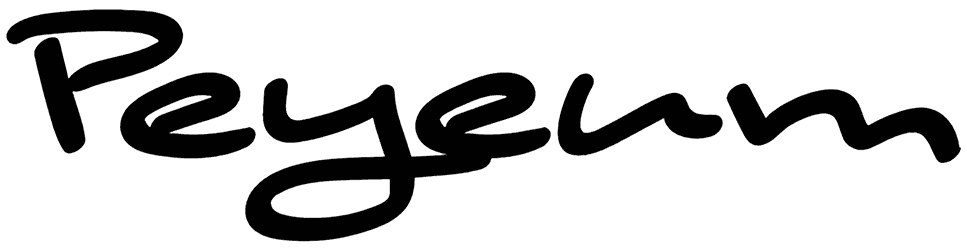
Peyeum Font
Peyeum is a script font that feels incredibly flowing and elegant, thus it would look perfect on street posters, digital banners, logos, the user interface of applications, and editorial projects.
This handwritten font is really capable of adding a sense of jauntiness, grunge, eeriness, and dynamism to your graphic content. Just in case you are looking for a font with oblique and curved characters such as this one, don’t hesitate to visit our wonderful archive.